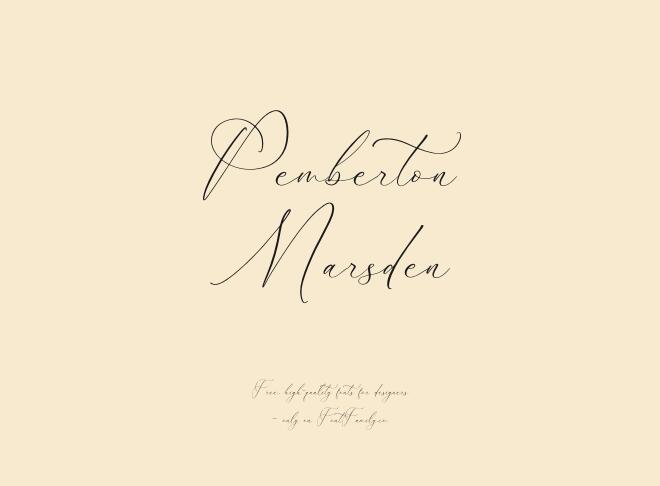
Pemberton Marsden Font
The Pemberton Marsden Font, designed by Pemberton Foundry, is a unique, rustic, and playful font. With its handwritten and decorative style, it brings an element of charm and personality to any design project. The brush strokes are well-crafted, giving the font a natural hand-drawn appeal. This font is comparable to the likes of 'Brush Script' but with a more rustic edge, making it perfect for logos, branding, or any creative design that needs a touch of authenticity and character. Despite its playful design, Pemberton Marsden Font maintains a professional aesthetic that makes it versatile for both fun and formal designs. Its unique style sets it apart from other fonts, making it a great choice for designers seeking to add a distinctive touch to their projects.